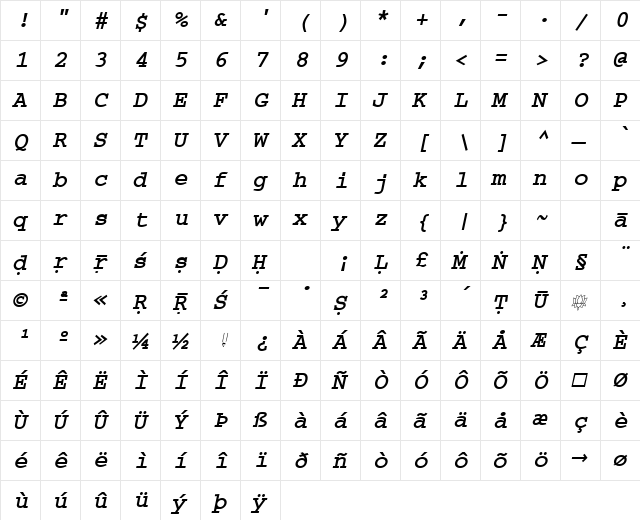
Sanskrit-Courier Bold Oblique Font Preview
Design Context for Sanskrit-Courier Typeface
Sanskrit-Courier brings the precise, column-aligned rhythm of monospaced typography to designs that value technical clarity and systematic order. The slanted form adds forward momentum and visual energy. The heavy weight commands attention and anchors typographic hierarchies.
Pro Tip: Use Sanskrit-Courier with slightly increased line-height for extended reading — fixed-width spacing can feel dense in longer passages without extra breathing room.